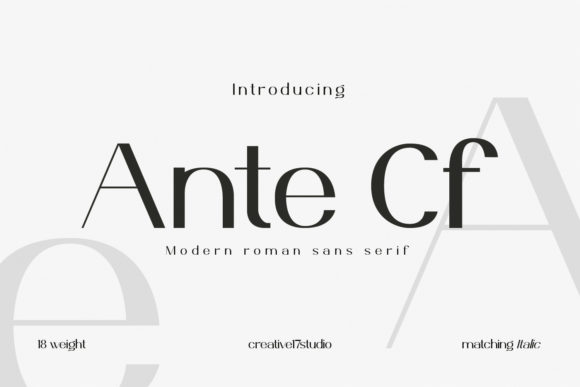
The Elegance of Ante Cf Font: A Designer’s New Best Friend
I still remember the time I was working on a wedding invitation project, and my client asked for a font that was both modern and elegant. I scoured the internet, tried out countless fonts, but nothing seemed to fit the bill. That was until I stumbled upon Ante Cf Font. ✨ It was love at first sight! The clean lines, the sophisticated feel, and the versatility of this sans serif font won me over. In this article, I’ll share my experience with Ante Cf Font, its features, and how to make the most of it in your designs.
An Honest Review of Ante Cf Font
• ✅ Elegant and modern sans serif design
• ✨ Highly versatile for various design projects (logos, wedding invitations, headings, t-shirts, and more)
• ⚡️ Excellent for digital and print designs
• 🎨 Great for designers, crafters, and creative hobbyists
While Ante Cf Font is an excellent choice, there are a few things to keep in mind: 🤔
• ⚠️ Limited availability of stylistic alternates (but what’s available is still impressive)
• 🤔 May not be the best choice for body text due to its elegant, yet somewhat delicate design
The Backstory of Ante Cf Font
Ante Cf Font was designed with elegance and versatility in mind. Its creator aimed to craft a font that would be both modern and timeless, suitable for a wide range of design projects. The result is a beautiful sans serif font that exudes sophistication and style.
Q: What is Ante Cf Font?
A: Ante Cf Font is an elegant and modern sans serif font, suitable for various design projects, including logos, wedding invitations, headings, and more.
Q: Is Ante Cf Font suitable for body text?
A: While Ante Cf Font is an excellent choice for headings and titles, it may not be the best choice for body text due to its elegant, yet somewhat delicate design.
Q: Does Ante Cf Font support OpenType features?
A: Yes, Ante Cf Font supports OpenType features, including ligatures, stylistic alternates, and glyphs.